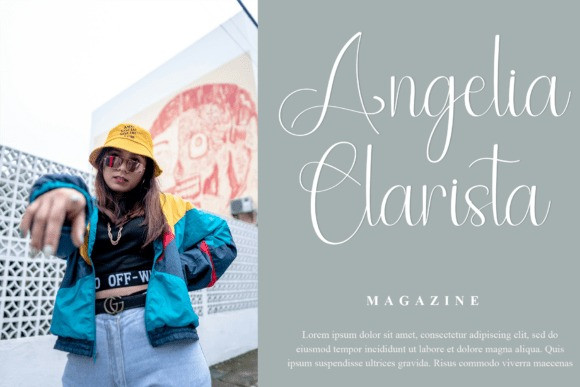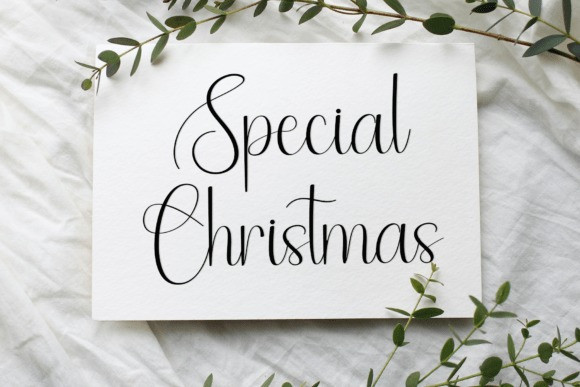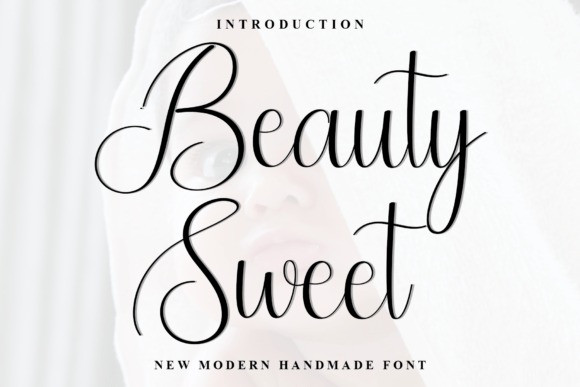
Beauty Sweet Handwritten Font
Beauty Sweet Handwritten Font is a lovely and timeless handwritten font. It is the best choice for creating eye catching logos, branding and quotes. Every letter has a unique and beautiful touch, which will make your design come alive!